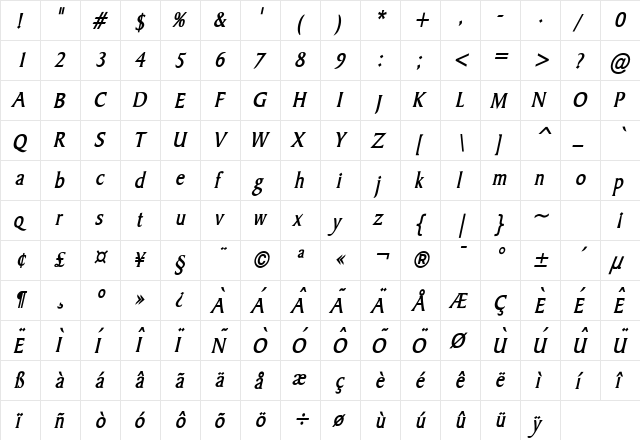
Barrett Condensed Bold Italic Font Preview
Design Context for Barrett Condensed Typeface
Barrett Condensed is a composed and adaptable typeface that performs quietly and consistently across a wide range of design contexts. The dynamic lean of this cut emphasises speed and emphasis in any layout. Its bold stroke weight gives it real presence on the page. The condensed width makes it efficient for tight spaces without sacrificing legibility.
Pro Tip: Use Barrett Condensed for emphasis, pull quotes, and subheadings where its slanted energy can add rhythm to the layout.